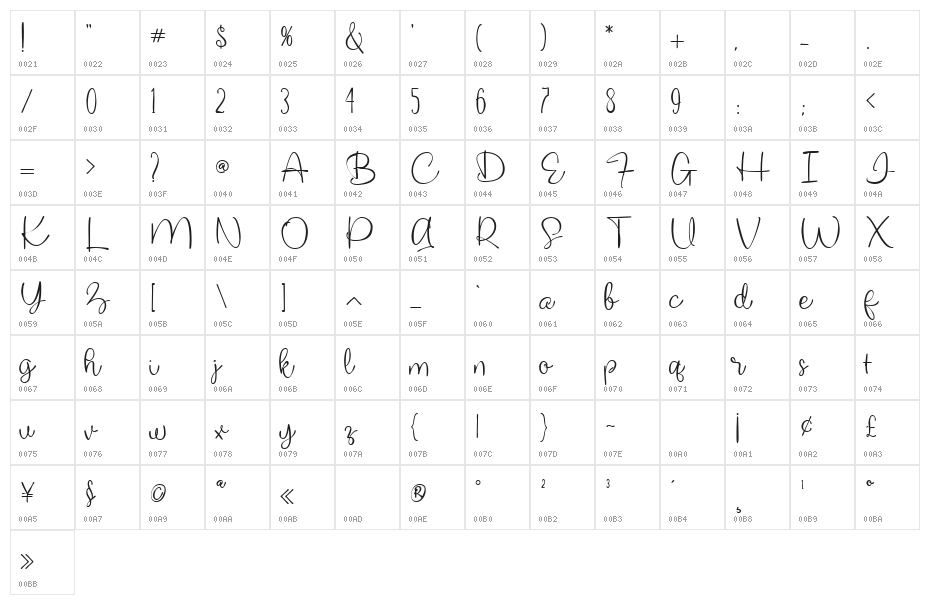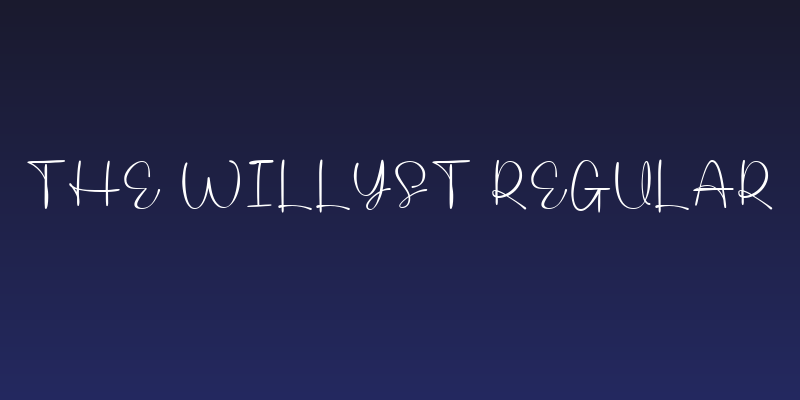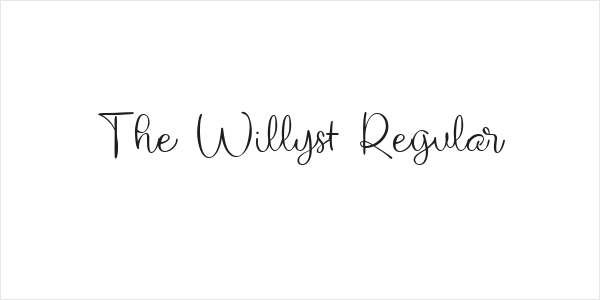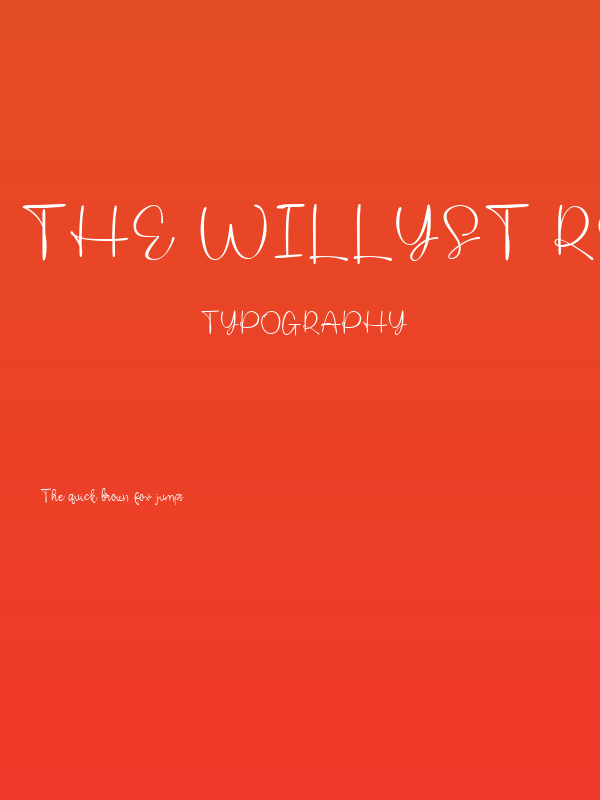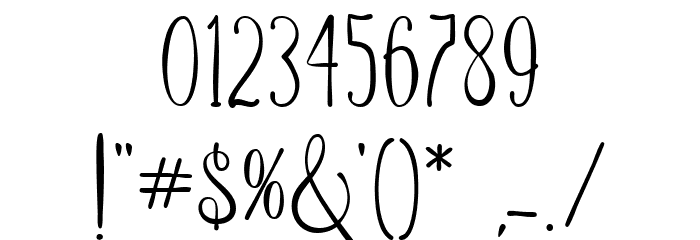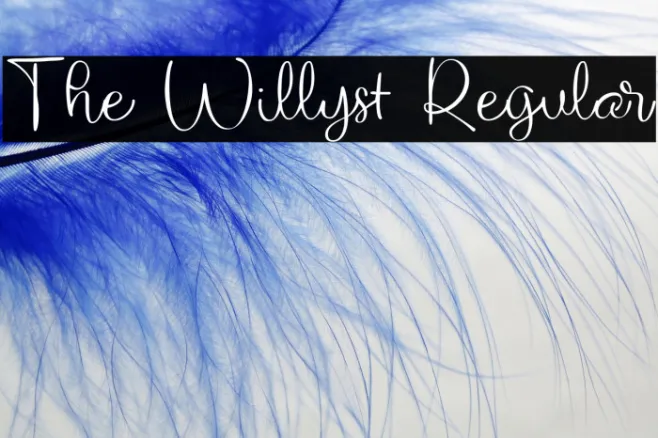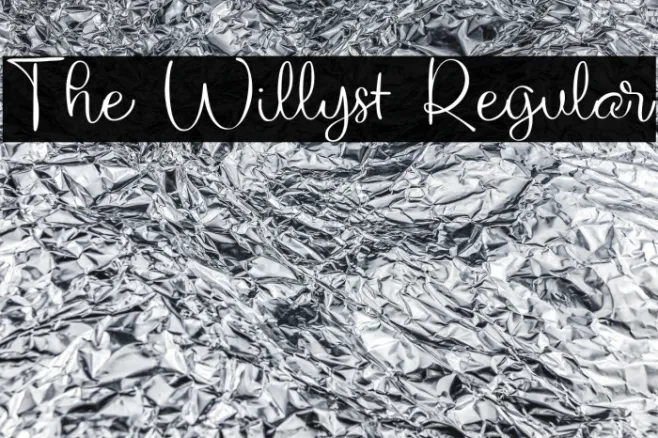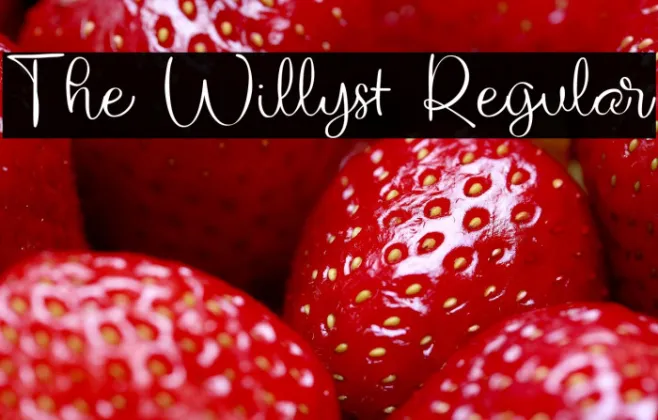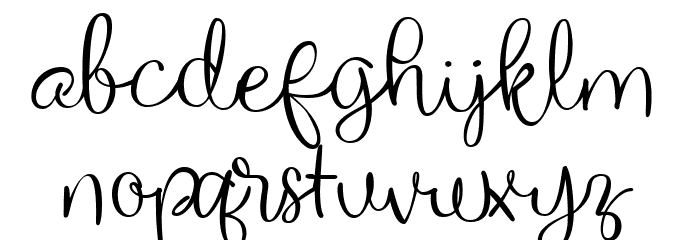
The Willyst Regular Font
The Willyst Regular Description
This font features a whimsical and playful script style, characterized by its flowing, connected letters that mimic the fluidity of handwriting. The uppercase letters are elegantly curved, with a slight slant that adds a dynamic feel. The lowercase letters maintain a consistent style, with loops and swirls that enhance its decorative appeal. The numerals are clear and legible, maintaining the same playful aesthetic. Special characters are creatively designed, fitting seamlessly with the overall style. This font is perfect for projects that require a personal, handwritten touch.